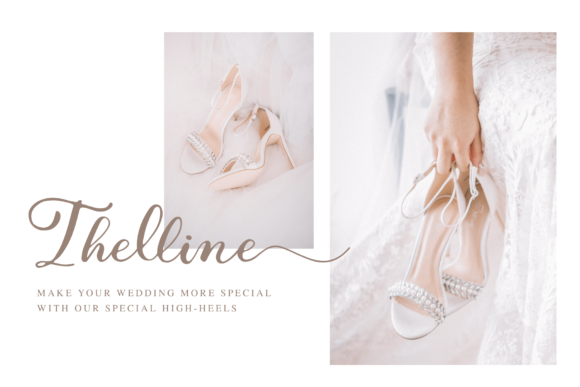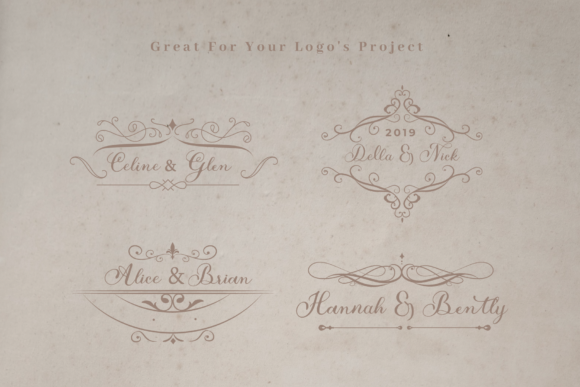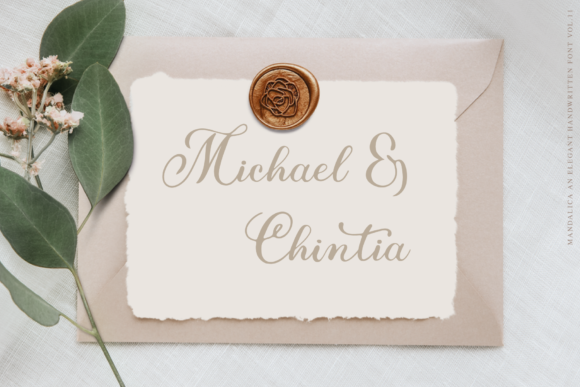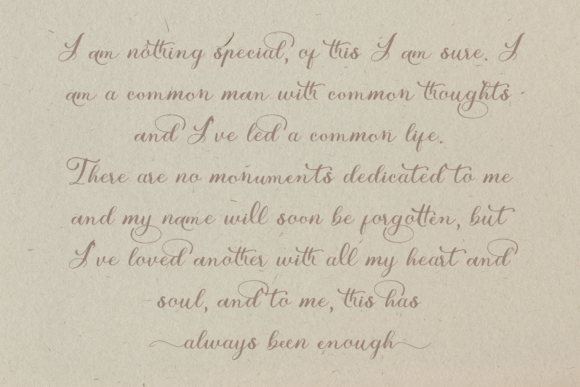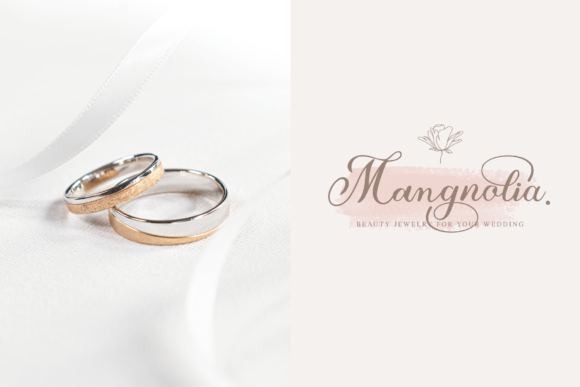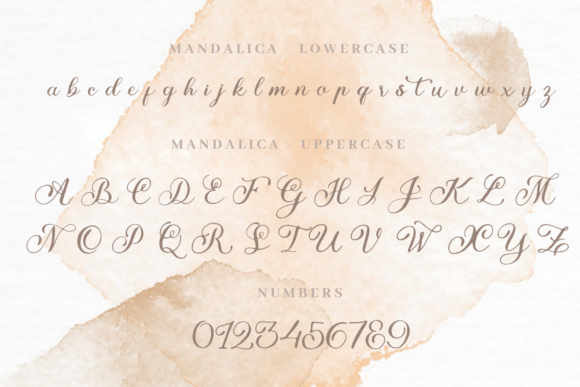
Introduction to Mandalica Script Font
Imagine you’re brainstorming ideas for a high-end wedding invitation design, and you stumble upon the perfect font to match the luxury atmosphere of the event. You’re browsing through a collection of free download fonts, and suddenly, you come across the Mandalica Script Font. Its delicate calligraphy style is exactly what you need to add a touch of elegance to your design.
As a designer, you know the importance of having the right design resource at your fingertips. The Mandalica Script Font is a valuable addition to any designer’s toolkit, offering a high-quality, PUA-encoded font that’s perfect for creating unique and eye-catching designs. Whether you’re working on a creative project with a transparent background or need to add a luxurious feel to your typography, this font is sure to impress.
Key Features of Mandalica Script Font
- High-quality, free download font perfect for creative projects and design resources.
- Unique, elegant script design with a transparent background, ideal for overlaying on images or videos.
- Features a high-resolution design, suitable for printing and digital use, with a minimum recommended resolution of 300 DPI.
- Includes a wide range of characters, including uppercase and lowercase letters, numbers, and punctuation marks, making it a versatile design resource.
- Perfect for use in various creative projects, such as logo design, typography, and graphic design, due to its elegant and sophisticated appearance.
Honest Review: Mandalica Script Font
As a designer, I’m always on the lookout for high-quality fonts that can elevate my creative projects. I recently stumbled upon the Mandalica Script Font, and I have to say, it’s been a game-changer.
- ✨ Beautifully crafted script font with a vintage touch
- ✨ Perfect for titles, headings, and other design elements
- ✨ High-quality design resource that’s available for free download
I’ve used the Mandalica Script Font in several design projects, and it’s always impressed me with its elegance and sophistication. The font’s transparent background makes it easy to use on any design, and its versatility is unmatched.
- ⚠️ Limited character set, which may not be suitable for extensive text-based projects
- ⚠️ May not be compatible with older versions of design software
Overall, I’m thoroughly impressed with the Mandalica Script Font. Its high-quality design and free availability make it an invaluable resource for any designer. While it may have some limitations, I highly recommend it for any creative project that requires a touch of elegance and sophistication.
The Mandalica Script Font is ideal for various creative projects, including:
Getting the Most Out of the Mandalica Script Font
To get the most out of the Mandalica Script Font, experiment with different font sizes, colors, and styles. Combine the font with other design elements to create visually appealing graphics. Consider using the font in conjunction with a solid background or a transparent background to achieve the desired effect.